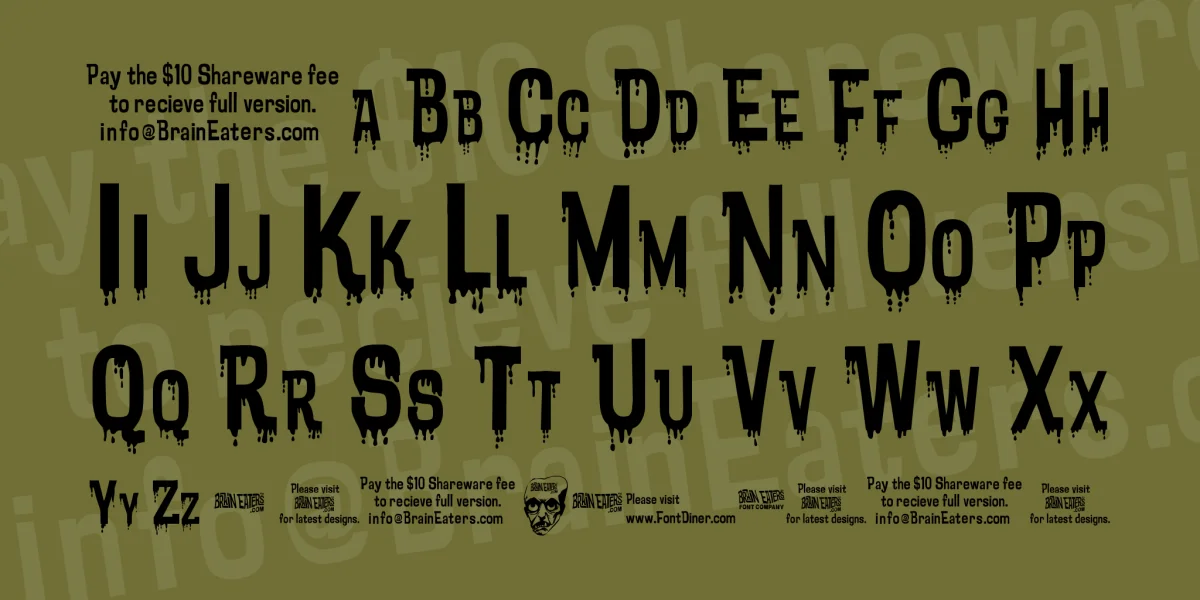
This font is from Brain Eaters Font Co. Fonts based on B-Movies, Horror, Sci-Fi, Exploitation and other trash. This is the Brain Eaters font Psychatronic with a terrifying twist!!! Based on the lettershapes for the movie "Children Shouldn't Play With Dead Things!" A san serif face with gorerific blood dripping from each tall, blocky, imperfect shape!